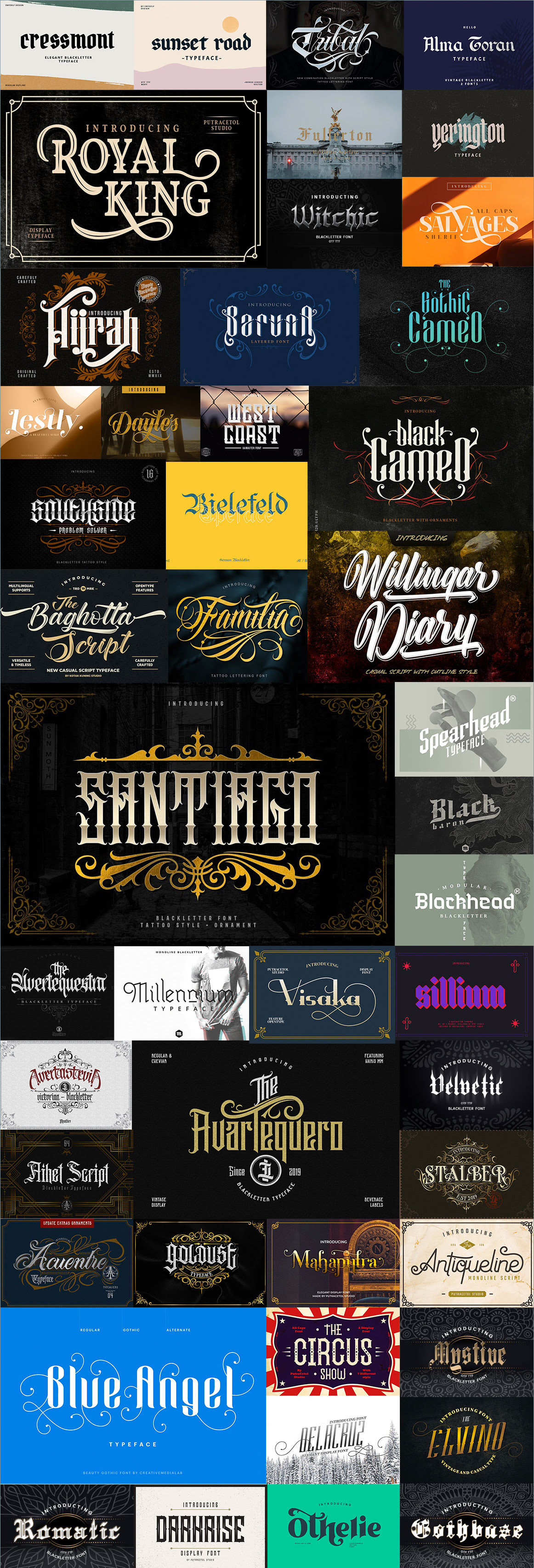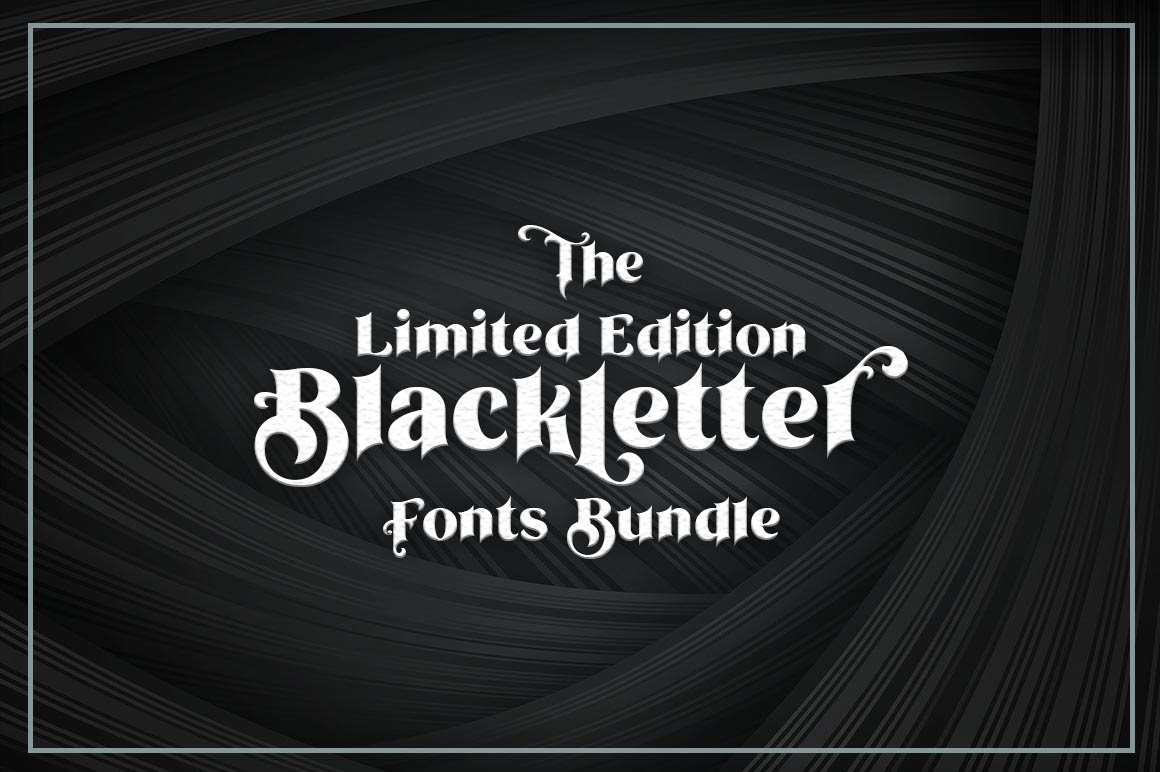
Free and Premium Quality Fonts - Best Premium FontsPollyester blackletter font is a handmade modern victorian handlettering which is combining modern and classic typography with some awesome alternates. Our marketplace allows artists to register and list their fonts for sale and include them in font bundles and deals. Font bundles offer downloadable blackletter fonts in a range of european languages including german.
blackletter font bundle
Blackletter font bundle. Its suitable for use in various projects such as gothic lettering tattoo headlines posters magazines newspapers t shirts labels and every other design which needs a striking typeface. Pollyester otf pollyester ttf web font ligatures. Yes we back to early 1800s bring classic touch on this decade. We also offer a font free every week.
763566 products 2125767. The livingstone is an unique blackletter decorative font. Perfect for tattoos clothing labels and packaging branding or any gothic themed projects. Our marketplace allows artists to register and list their fonts for sale and include them in font bundles and deals.
We offer savings of up to 96 off fonts on a regular basis. These gothic inspired fonts combine elements of grunge with medieval and vintage letterforms in sets that include alternate letterforms and plenty of embellishments. Introducing pollyester blackletter typeface font. Blackletter font bundle is suitable font for many creative products designs.
Introducing snubhore gothic blackletter font unique gothic blackletter for your design. Some leisure and entertainment venues might feel that blackletter fonts align well with their brand image. Introducing livingstone blackletter decorative font. Browse over 650 blackletter fonts for headers logos posters t shirts and book covers.